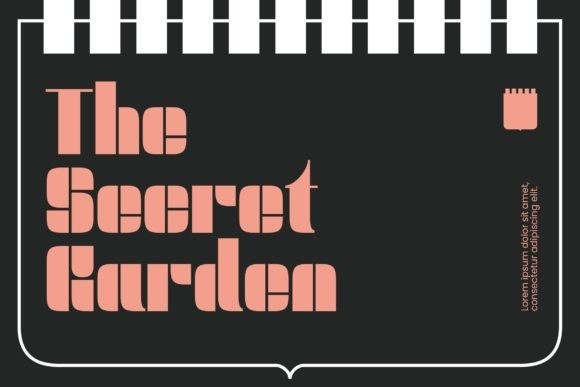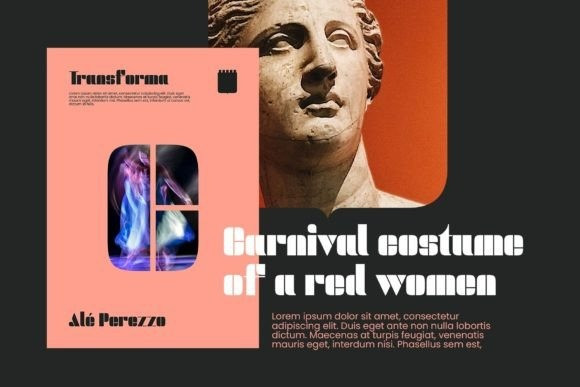
Tghead Geometric and Modular Font
Happy to introduce the newest addition to the Headfonts family, TGHEAD. This font was designed as a stencil font, inspired by an old graphic, found around town. As a geometric and modular font, Tghead`s glyphs are bold, with heavy strokes and high contrast. This font has one weight, with uppercase and lowercase characters, and extensive Latin script support. Tghead was specially designed for big, impactful headlines, therefore, the perfect choice when designing striking titles, headers or unconventional modern designs.